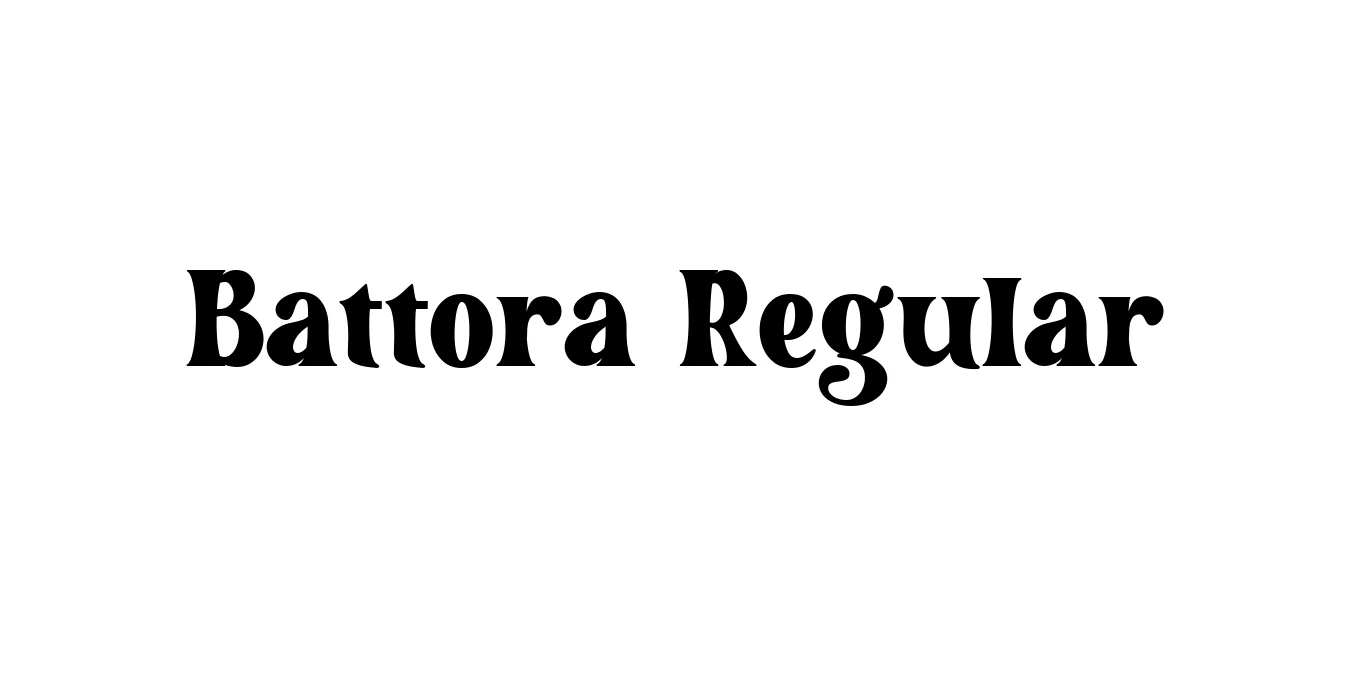
Battora Regular
Battora Regular is a sophisticated and modern serif typeface that seamlessly blends vintage charm with contemporary design aesthetics. Created by Alit Design, this font features high-contrast strokes and elegant proportions that command attention. The typeface is characterized by its sharp serifs and unique character shapes, making it a standout choice for designers looking to infuse their work with a sense of luxury and timeless refinement.
Beyond its visual appeal, Battora Regular is highly versatile and functional for professional layouts. It is particularly effective in high-end editorial contexts, where its readability and stylistic flair shine through. The font often includes a variety of ligatures and stylistic alternates, allowing for a customized and handcrafted feel in branding, invitations, and advertising campaigns. Its balanced weight ensures it remains legible while maintaining a strong decorative presence.
Battora Regular Best Uses
Ideal for creating sophisticated logos and high-end visual identities.
Perfect for fashion magazine headlines and elegant layout headers.
Great for luxury product campaigns that require a refined touch.
Adds a romantic and upscale feel to invitations and event programs.